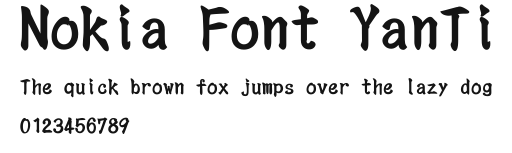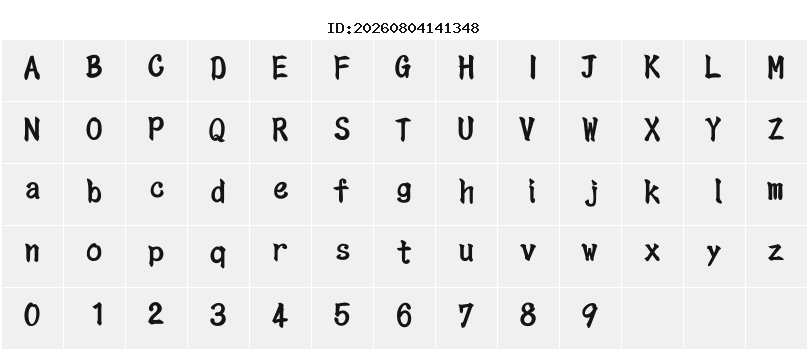
• Font Name: Nokia Font YanTi
• Designer: Founder
• Manufacturer: HanChao
• Description: HanChao's Nokia Font
Nokia Font YanTi.ttf is a modern, elegant sans-serif font designed for ultimate readability and visual harmony. Perfect for branding, headlines, web design, and print materials.